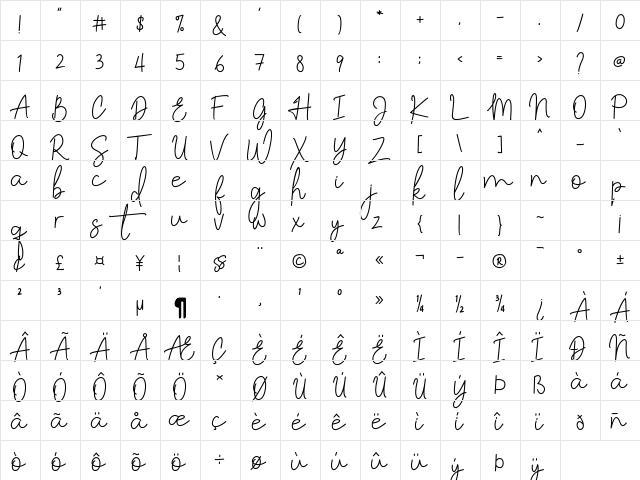
Lattiefa Regular
| Designer | AEN Creative Studio 2019 |
Design Context for Lattiefa Typeface
Lattiefa is a composed and adaptable typeface that performs quietly and consistently across a wide range of design contexts.